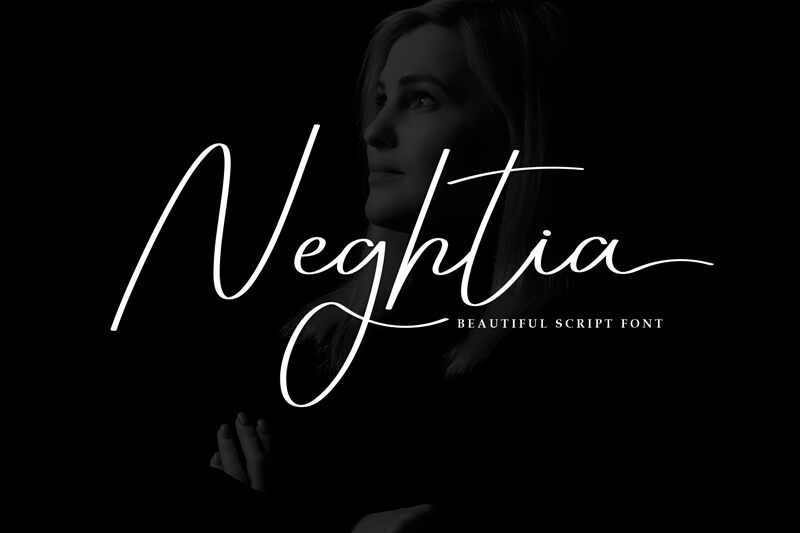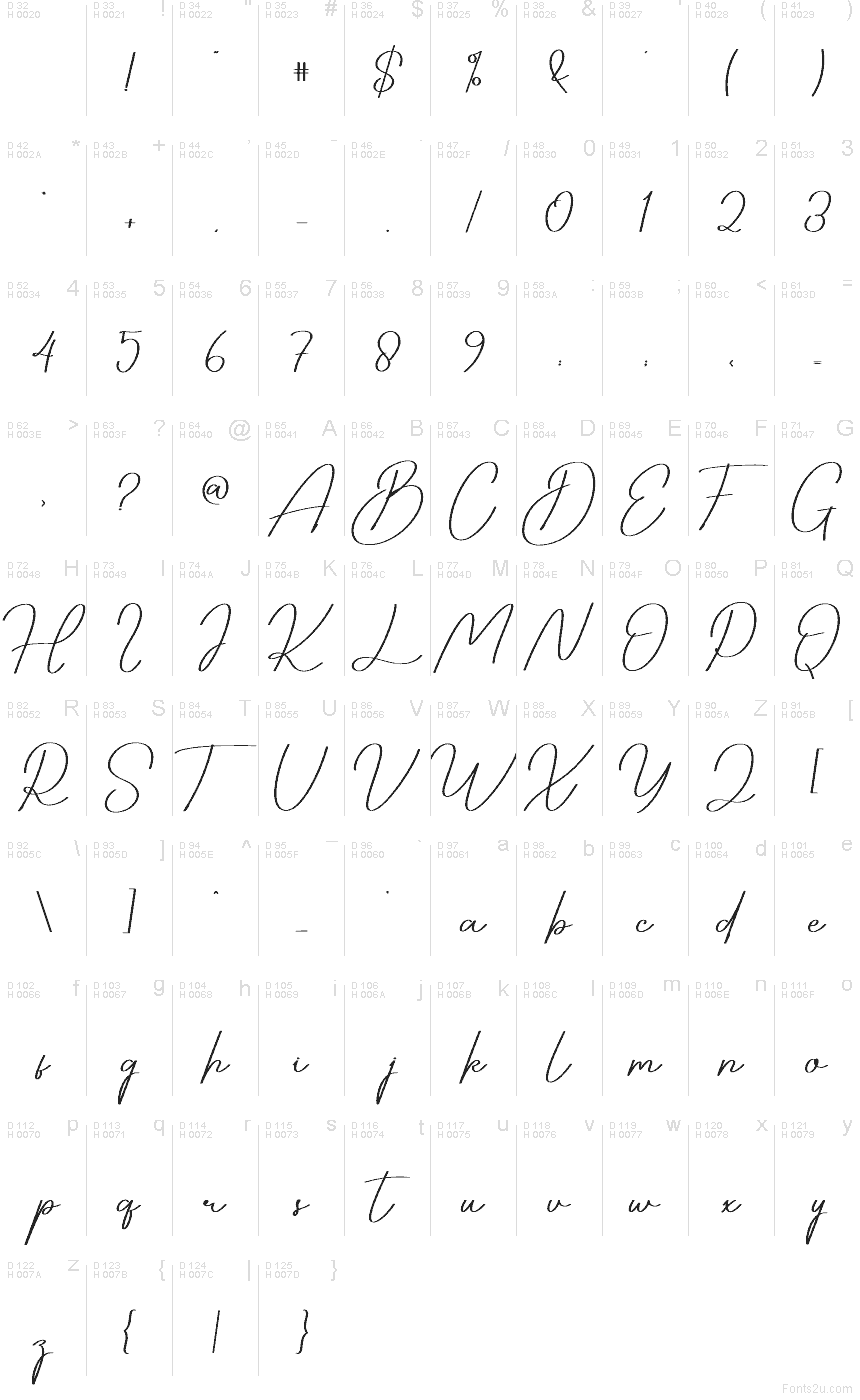
Neghtia
Neghtia font by Scratchones is a free handwritten script typeface that captures the ease of a quick ink signature with just enough polish for real-world branding. Its lines are slender and airy, with long, sweeping exits that feel like they were written with a fine-liner pen on smooth paper. The letters connect lightly, giving text a breezy, romantic flow that still reads clearly at medium sizes.
Using Neghtia, you can give wedding invitations, save-the-dates, beauty or fashion logos, Instagram quote posts, product packaging, and boutique branding a graceful, personal touch. This free font shines when used as a feature word or name, supported by a clean sans serif in small text. Keep it relatively large and well-spaced so those delicate strokes stay crisp and legible.